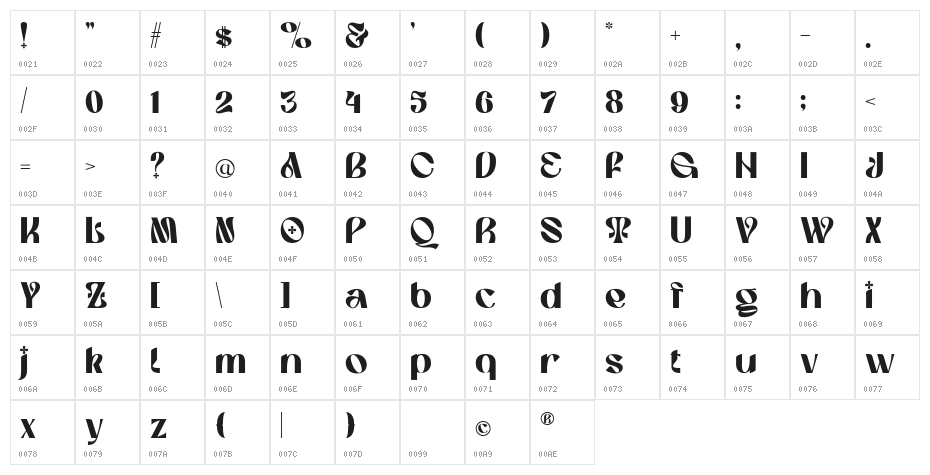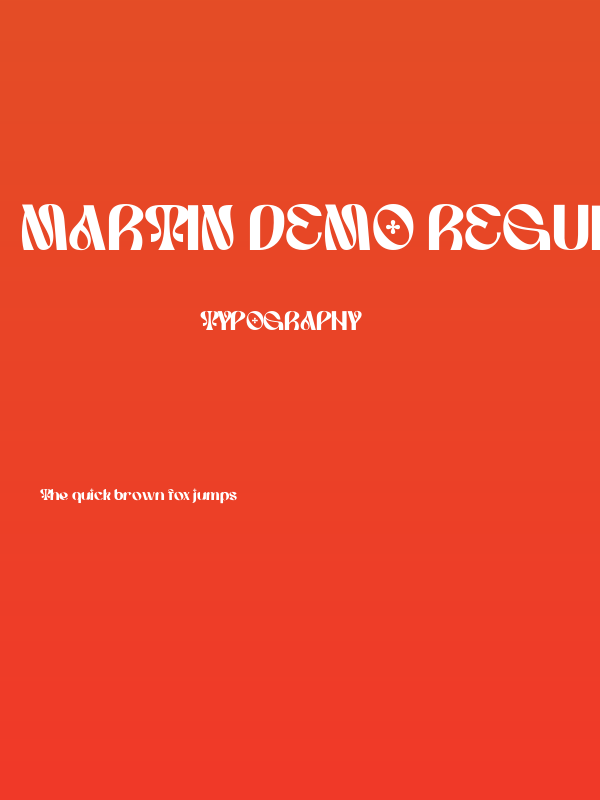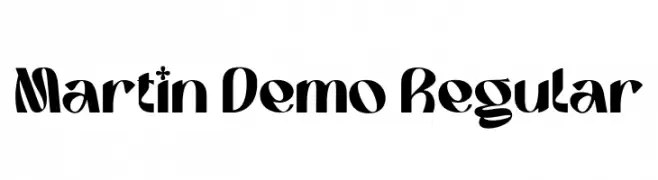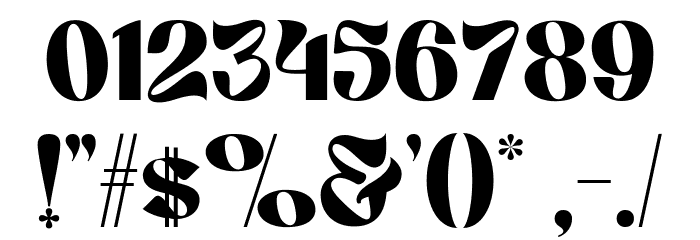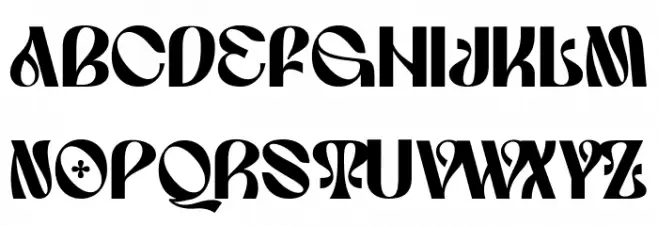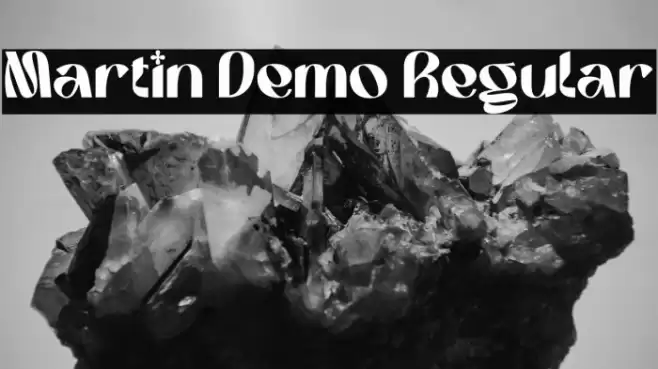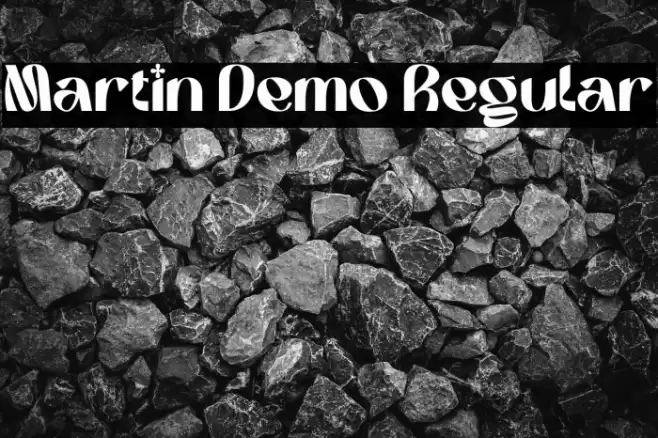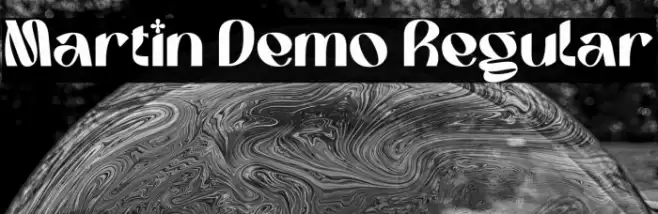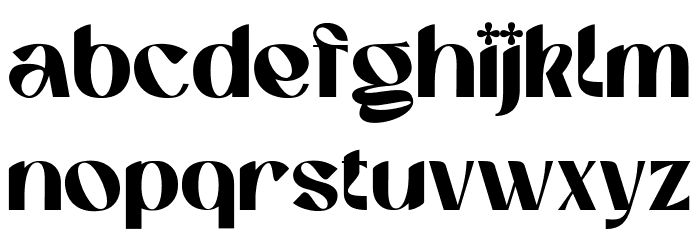
Martin Demo Regular Font
Martin Demo Regular Description
This font features a bold and decorative style with a unique blend of geometric shapes and artistic flair. The uppercase letters are characterized by their thick strokes and distinctive cutouts, creating a dynamic and eye-catching appearance. The lowercase letters maintain a consistent style, with playful curves and bold forms that enhance readability while adding a touch of creativity. The numerals are equally bold, with a consistent weight that matches the overall aesthetic. Special characters are designed with the same attention to detail, ensuring a cohesive look across all elements. This font's striking design makes it ideal for projects that require a strong visual impact.